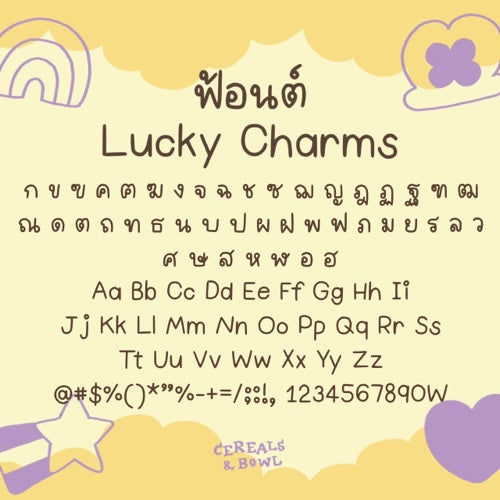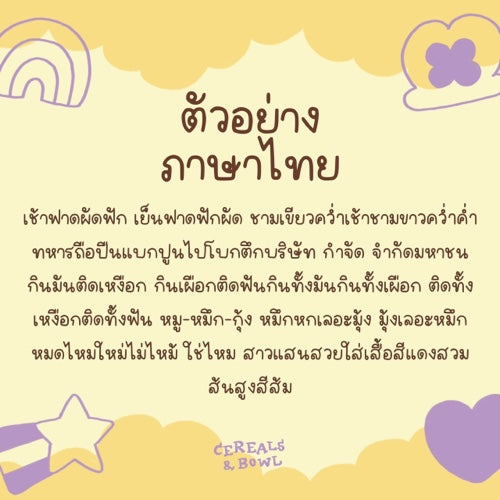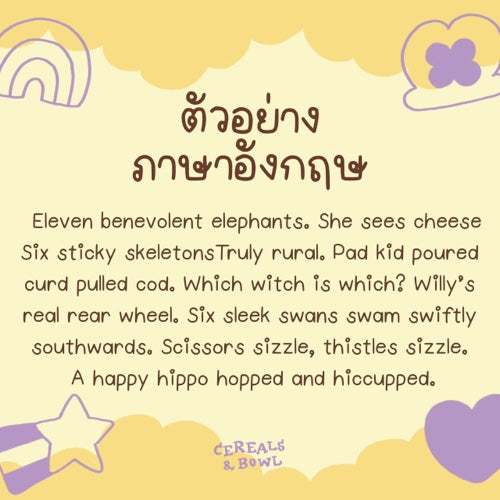
Lucky Charms (Font)
Lucky Charms Font
A cute and easy-to-use handwritten font. Perfect for typing summaries, study sheets, reports, and more. It looks just like real handwriting for sure!
ฟอนต์ลายมือ น่ารักๆ ใช้งานง่ายมากๆ จะใช้พิมพ์สรุป ชีท รายงานต่างๆ ก็ได้ เหมือนเขียนลายมือเองแน่นอน